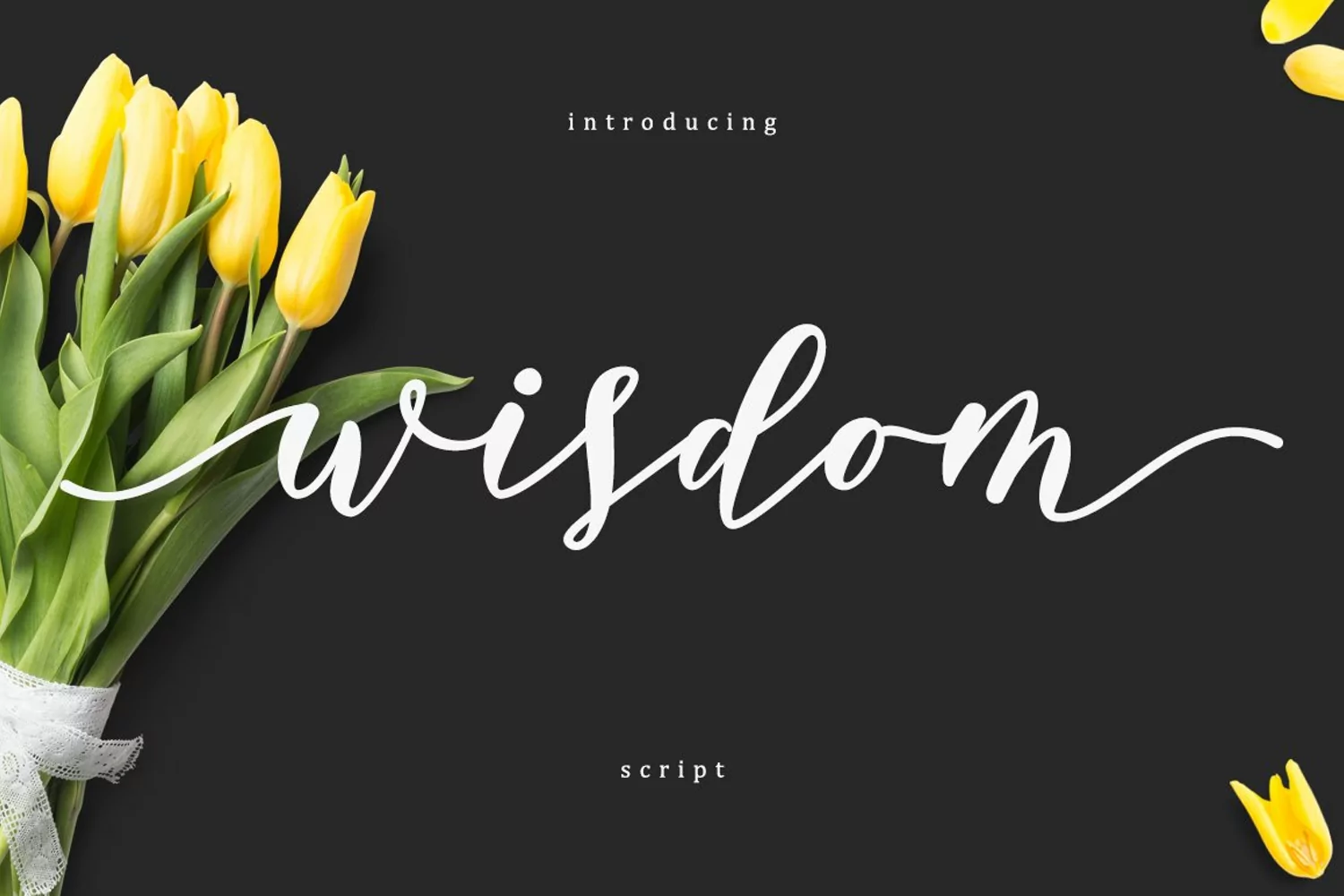
Wisdom - Beautifully Hand Crafted Script Font
The Wisdom font is a beautifully crafted, hand drawn script font. The thick and thin strokes are reminiscent to a calligraphic style and the letter spacing ample enough to provide clarity to each and every letter, numeral and punctuation. This makes the font easy to read. The Wisdom font will give your font book a pretty and unique splash.